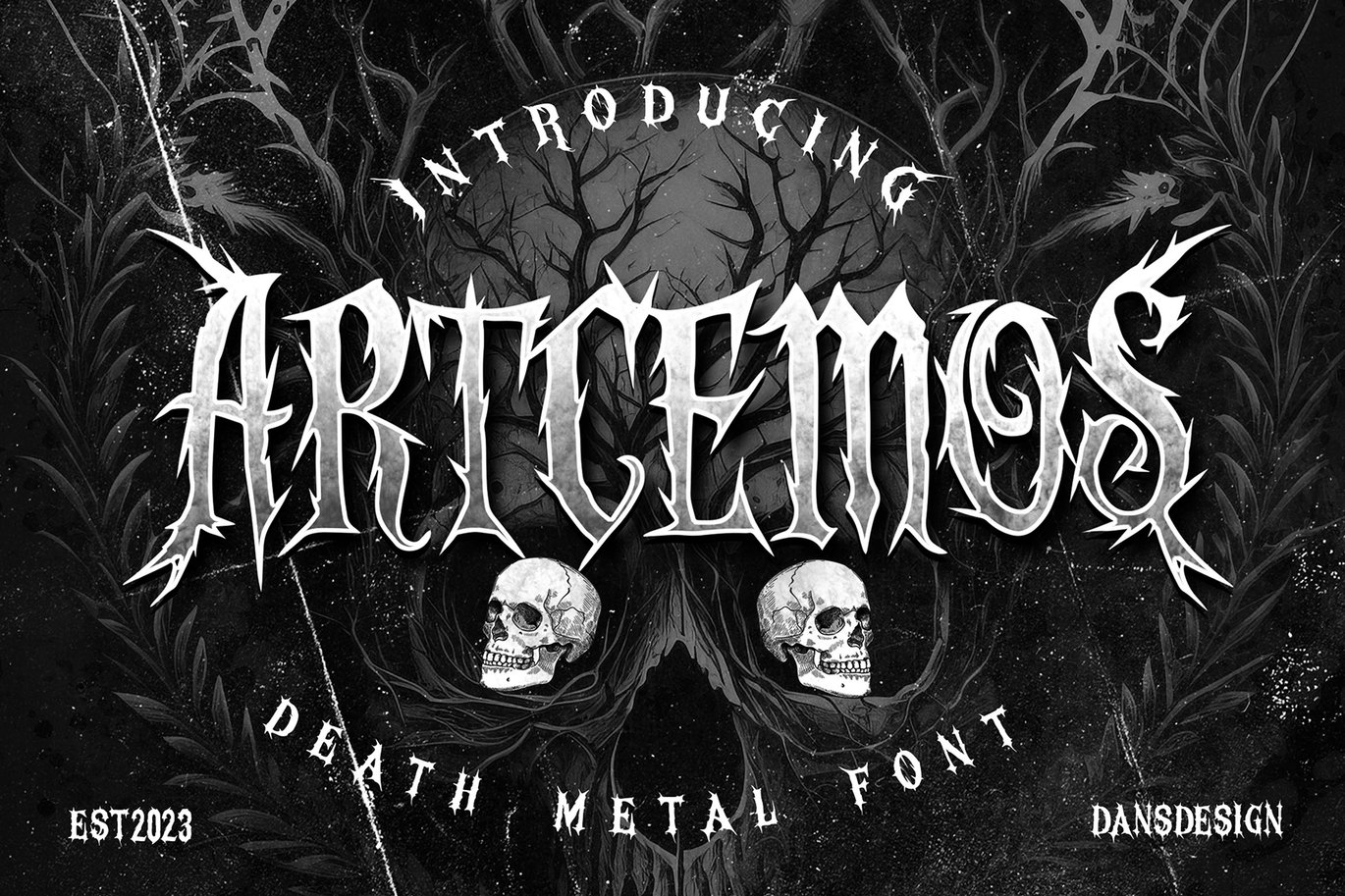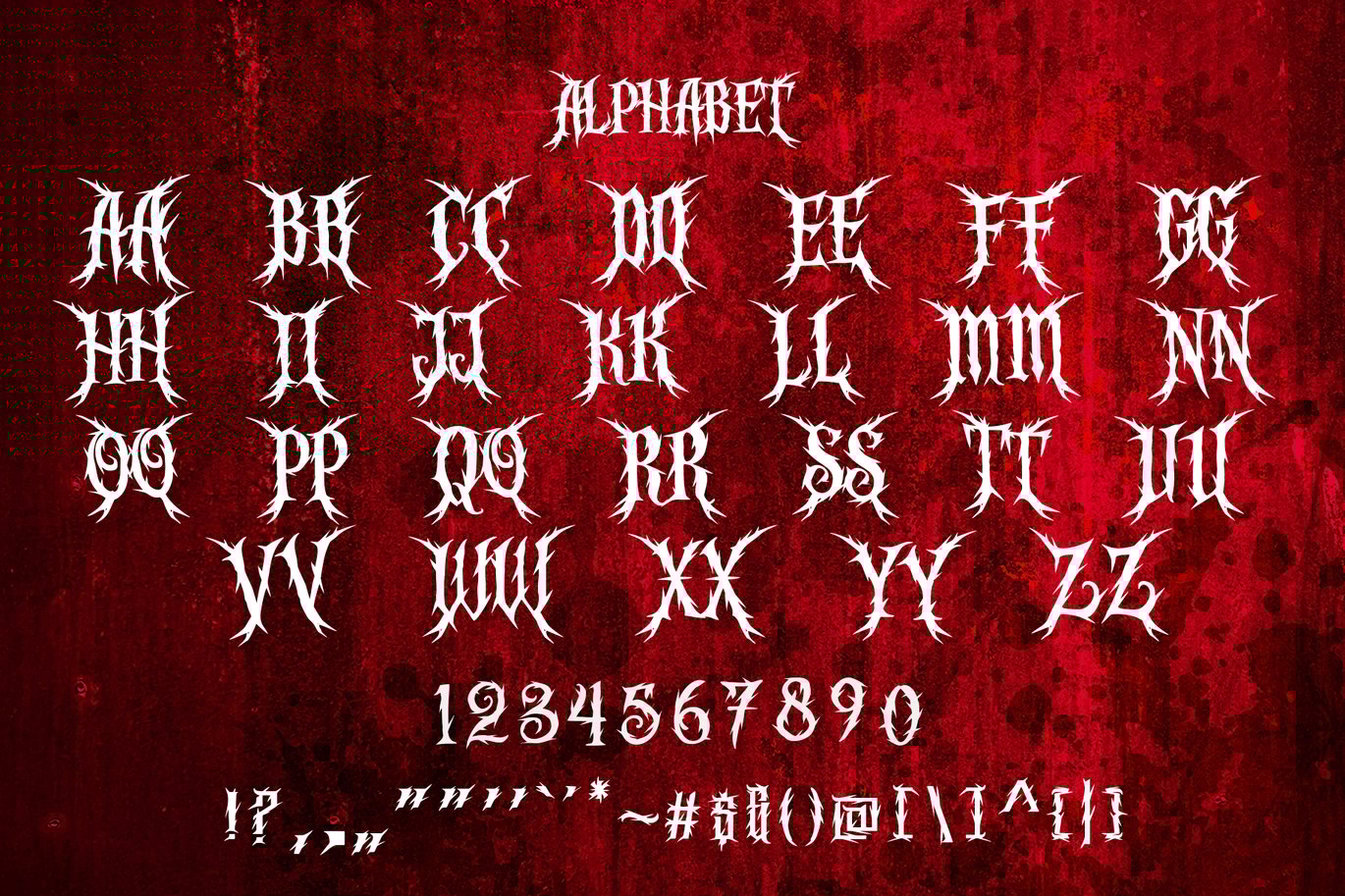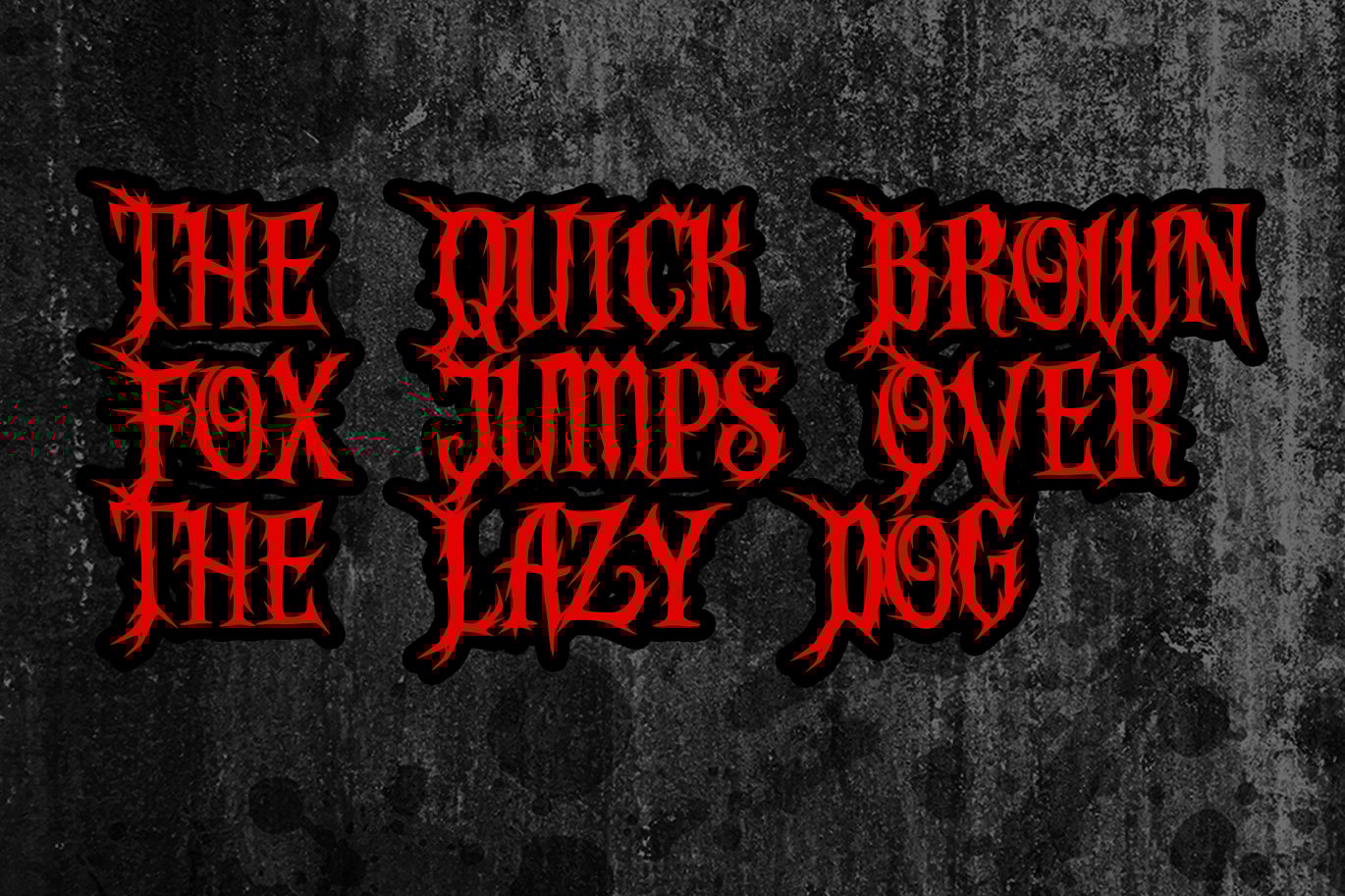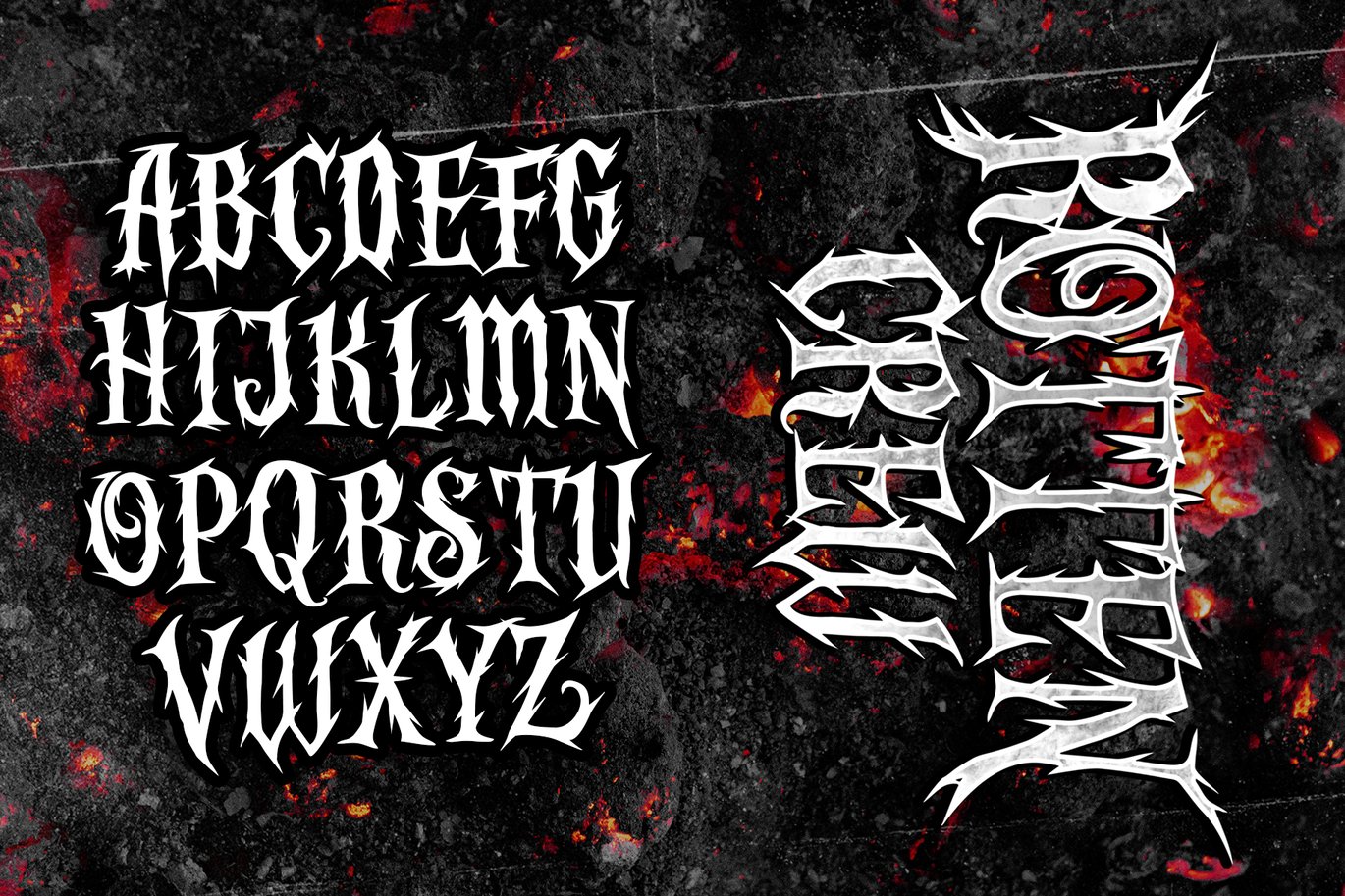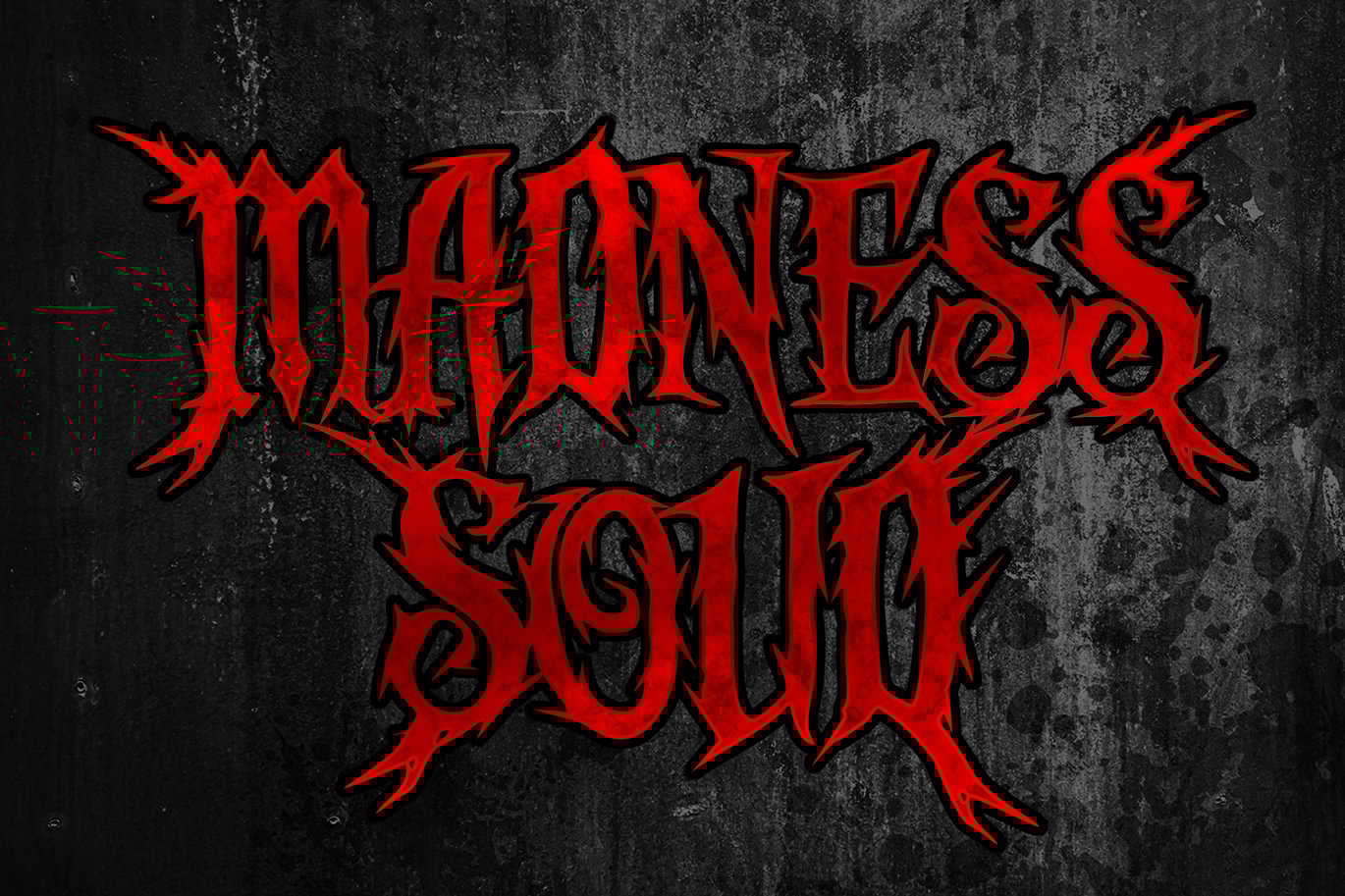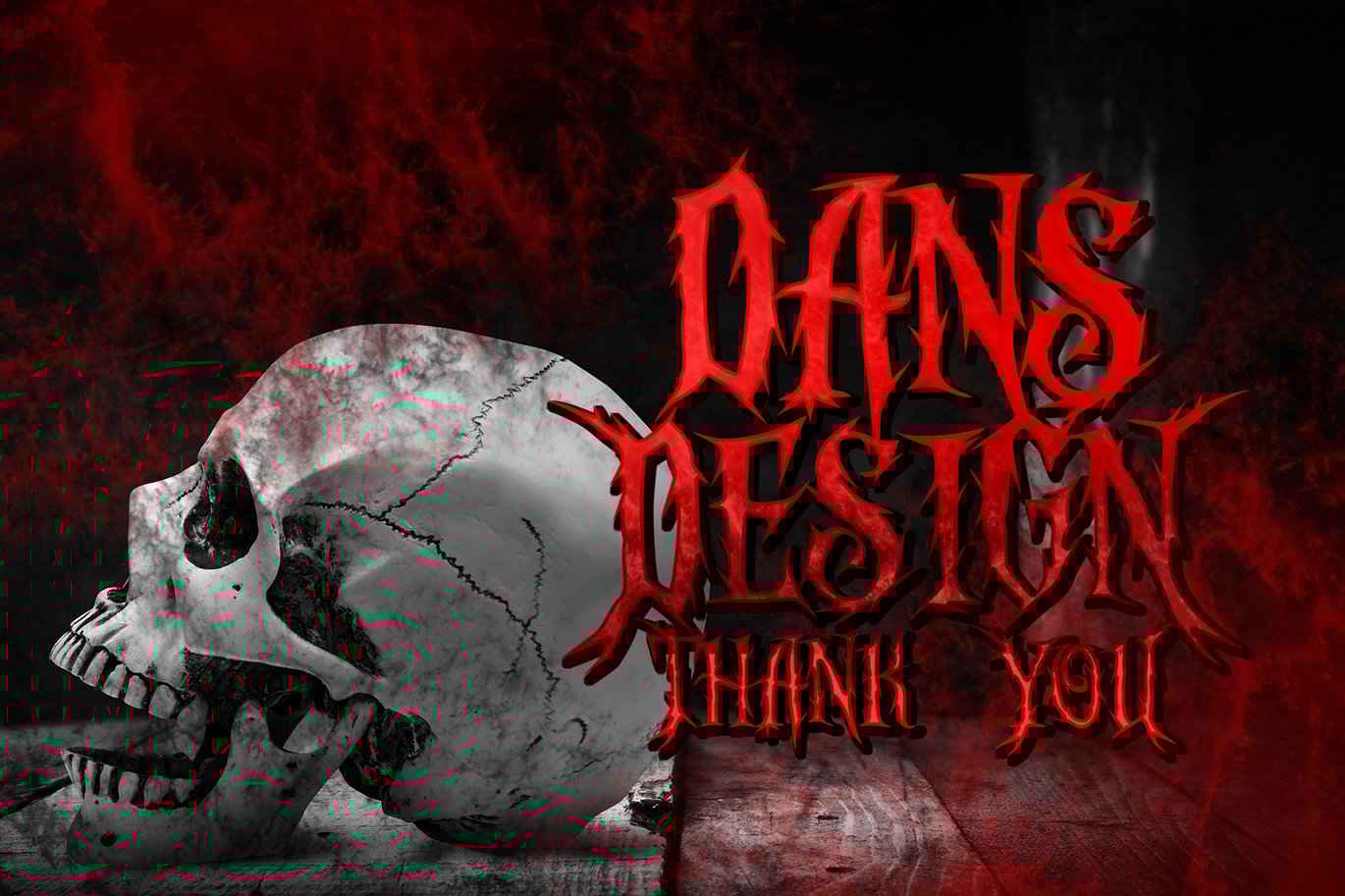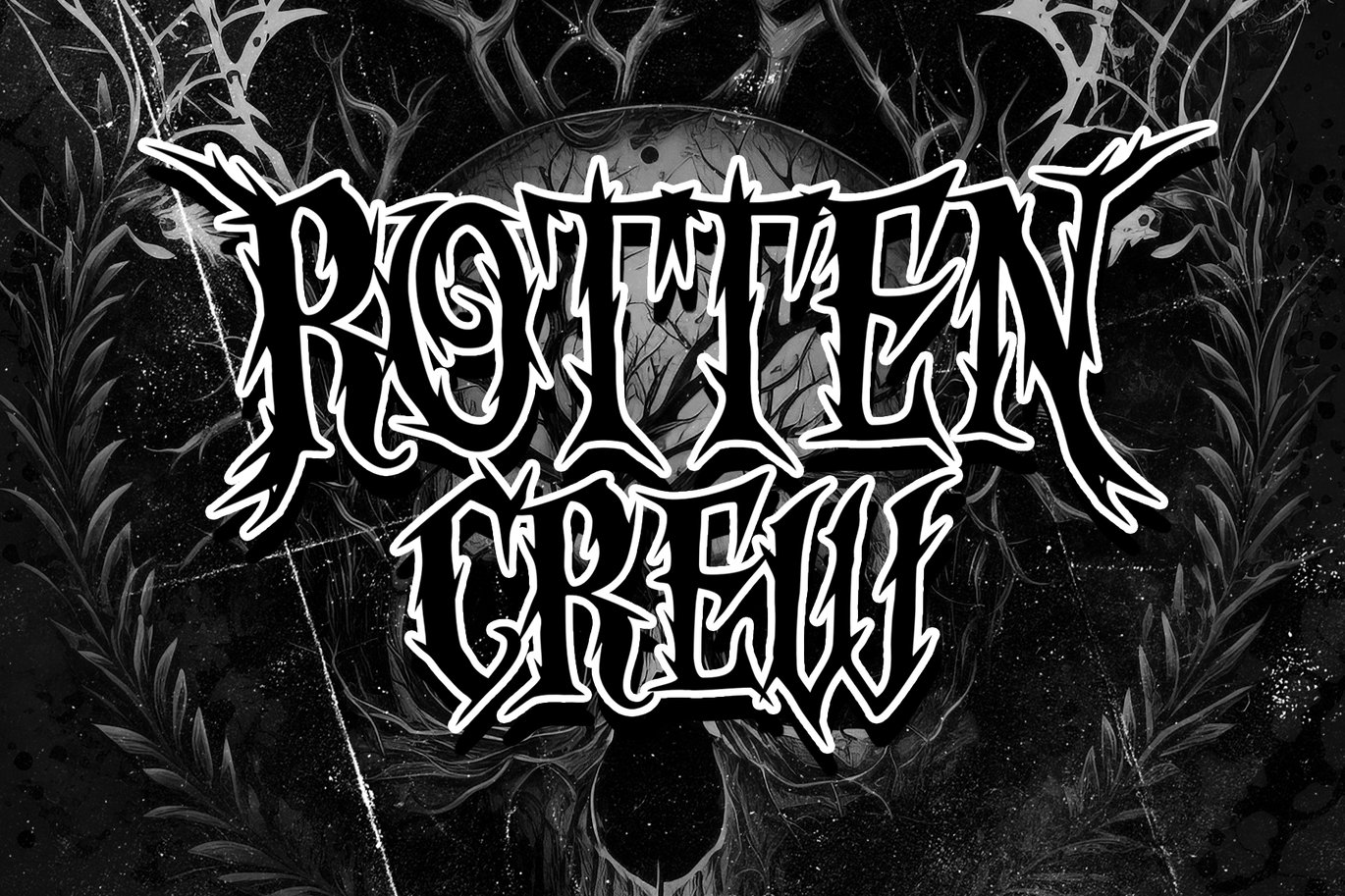
Artcemos Horror Metal Font
Artcemos a distinct, highly detailed, and Horror Metal Font font. It would make a great choice for exquisite retro-urban designs, tattoo business branding, logos, vintage designs, and more.